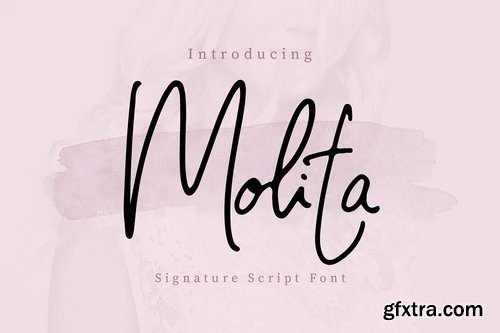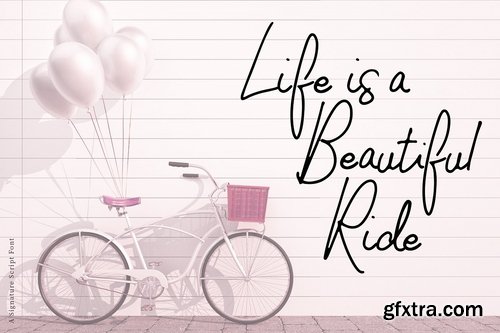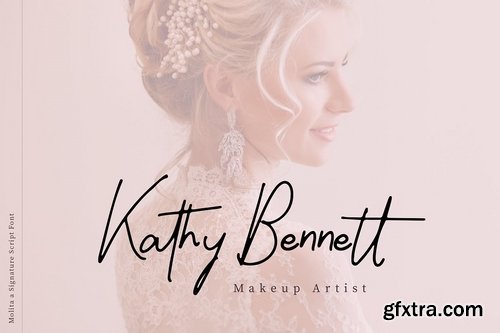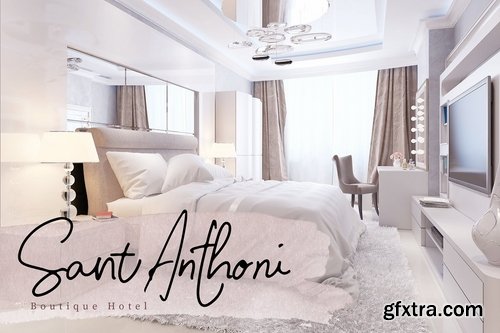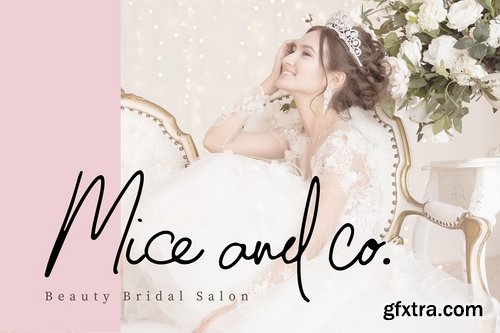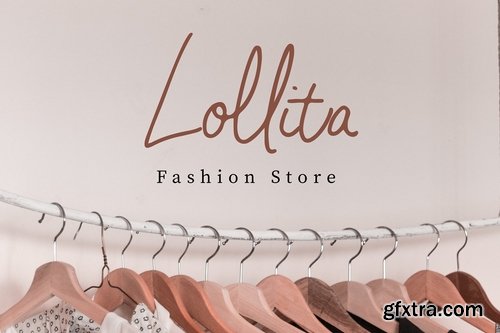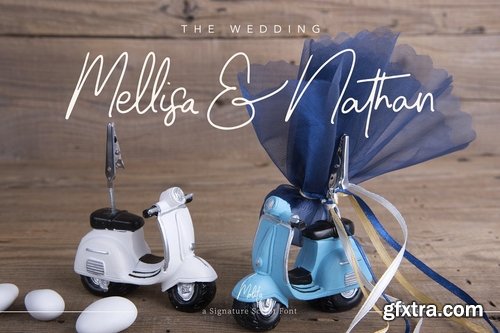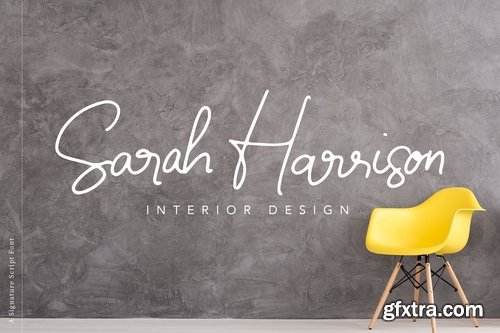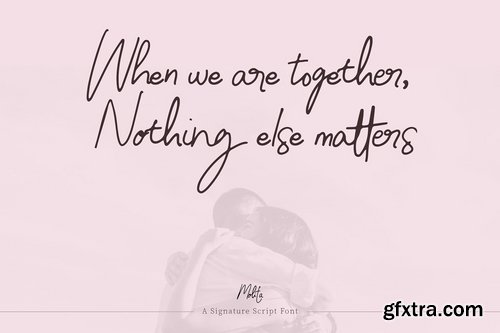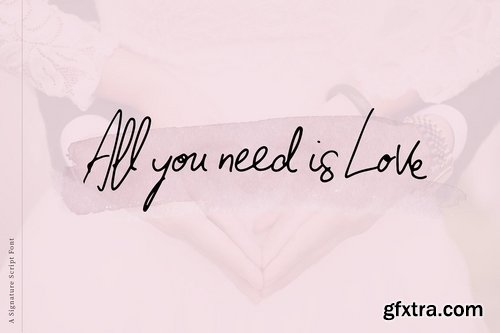
CM - Molita Signature Script Font 3992402
A perfect signature font with an elegant feel. Molita is perfect for branding projects such as logo, presentation, and product packaging. It's also perfect for wedding and fashion themed - or a stylish text overlay to any background image.